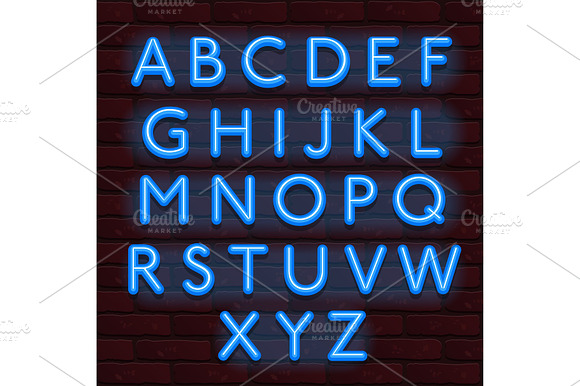
Neon Banner blue color alphabet font
Neon Banner alphabet font bricks wall
Why Neon Banner blue color alphabet font is worth a look
Neon Banner blue color alphabet font by ToozDesign fits naturally into Branding, posters, packaging, typography.